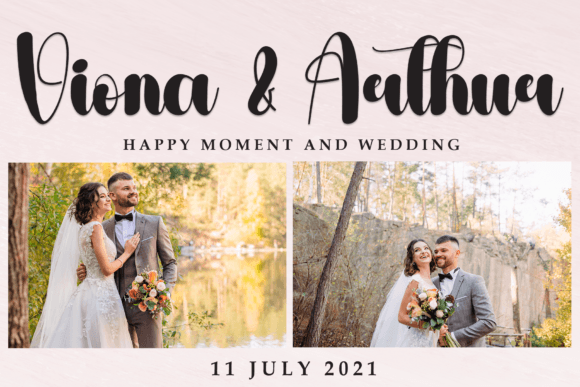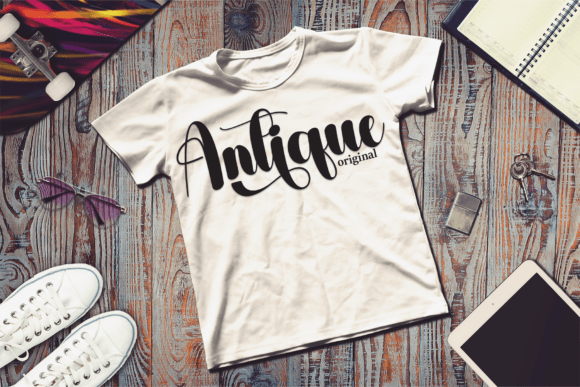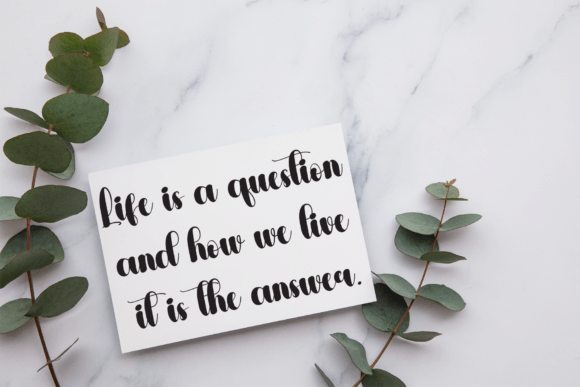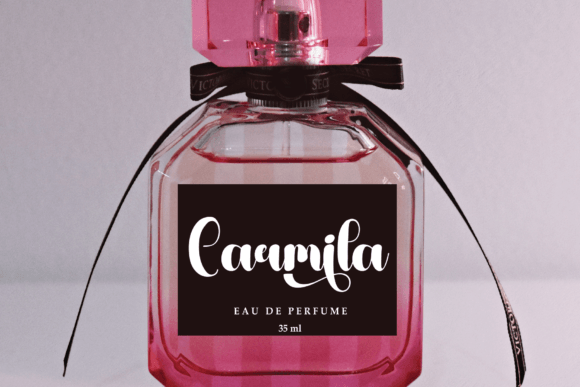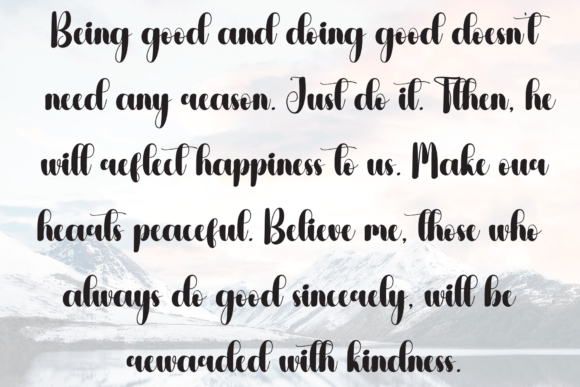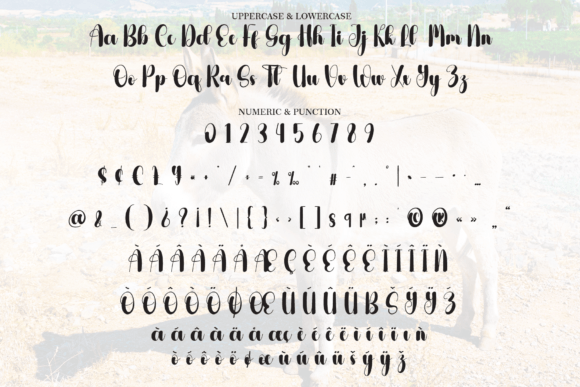
The Sweet Spot: Discovering the Charm of Donkey Font
I’ll never forget the time I was working on a wedding invitation project, and my client asked for a font that was “sweet, friendly, and not too fancy.” I scoured the internet, tried out dozens of fonts, but nothing seemed quite right. That was until I stumbled upon Donkey Font. This beautiful, handwritten font won me over with its fresh and casual vibe, and it’s been a staple in my design toolkit ever since.
What I Love About Donkey Font ✨
- 💕 Sweet and friendly tone that’s perfect for wedding invitations, cards, and other designs that need a personal touch
- ✅ Fresh and casual feel that’s great for creating a relaxed, informal atmosphere
- 🎉 Highly legible, even at smaller font sizes
- 🖌️ Beautifully crafted letterforms with a lovely, hand-drawn feel
Small Quirks and Limitations 🤔
- ⚠️ Limited character set compared to some other fonts, which can make it less suitable for very long texts
- 😐 Not ideal for very formal or corporate designs, as it can come across as too casual
The Story Behind Donkey Font
According to its designer, Donkey Font was inspired by the simple, yet elegant handwriting of a friend’s grandmother. The designer wanted to capture the warmth and personality of her grandmother’s handwriting, and create a font that would bring a touch of love and care to everyday designs.
Q: Is Donkey Font suitable for body text?
A: While Donkey Font is highly legible, it’s best suited for shorter texts, such as headings, titles, and captions. For longer texts, you may want to choose a font with a larger character set and more optimized readability.